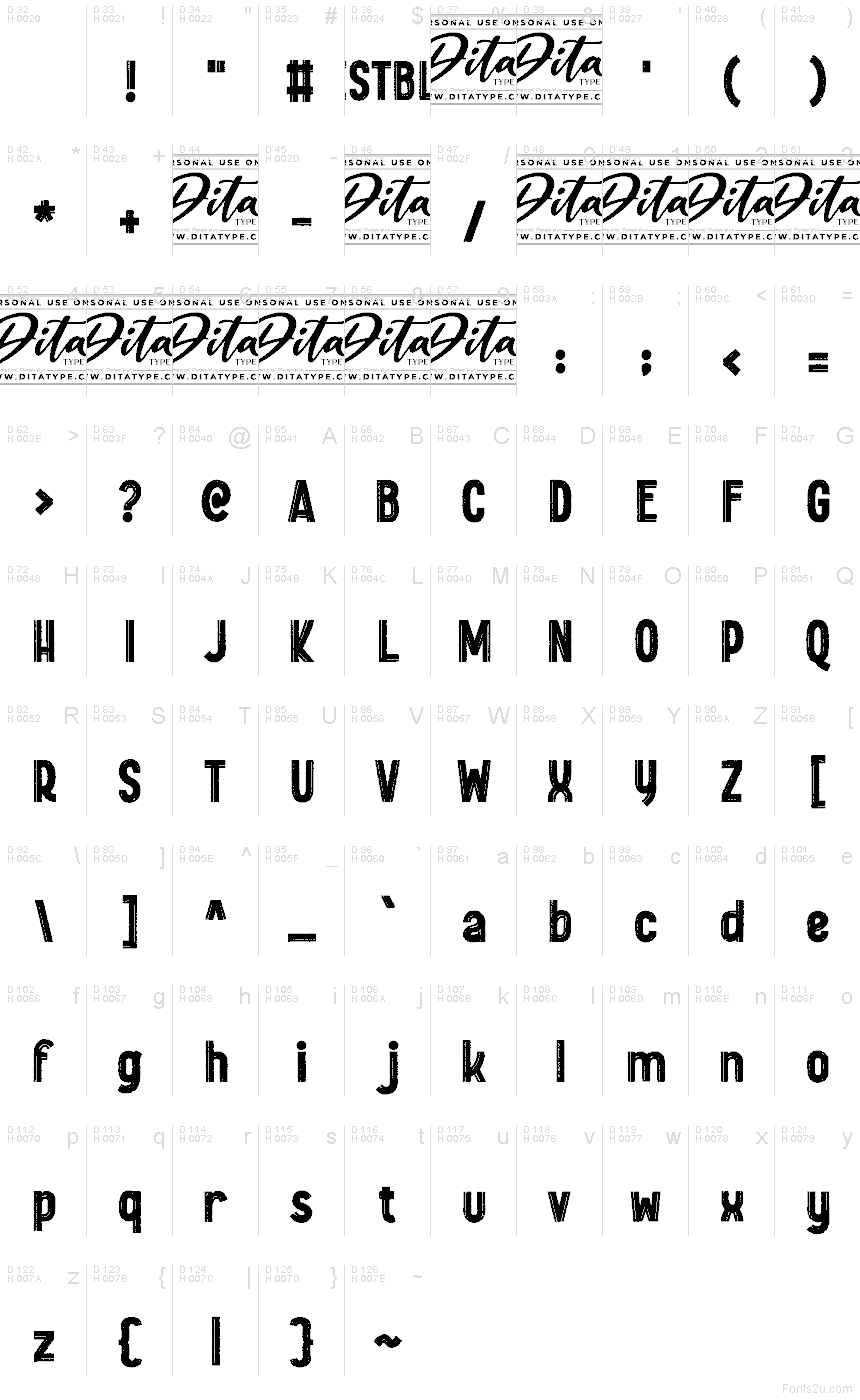
Westblue Personal Use
Westblue font by Ditatype is a bold display typeface with an eroded appearance and grunge texture. Letters feature a distressed appearance and casual vibe with both vintage influences for more modern applications. Its characters have cracks, slight fading, and tears where the font’s peripheries are left jagged and uneven.